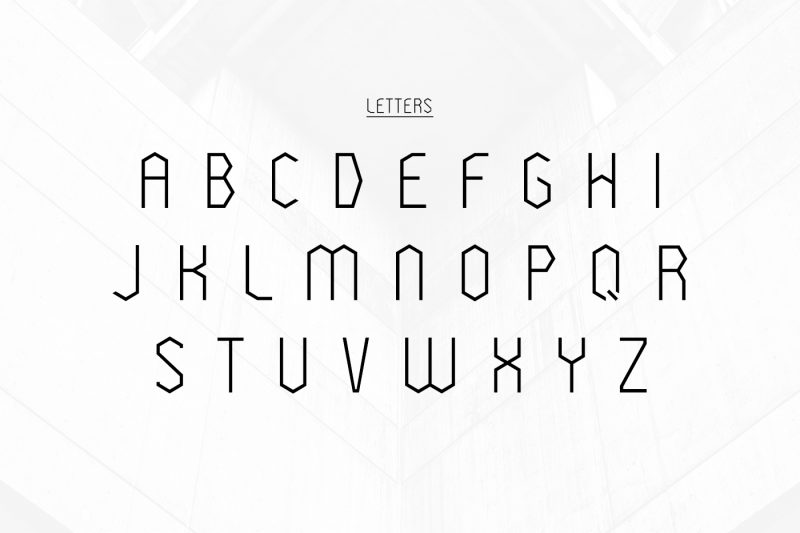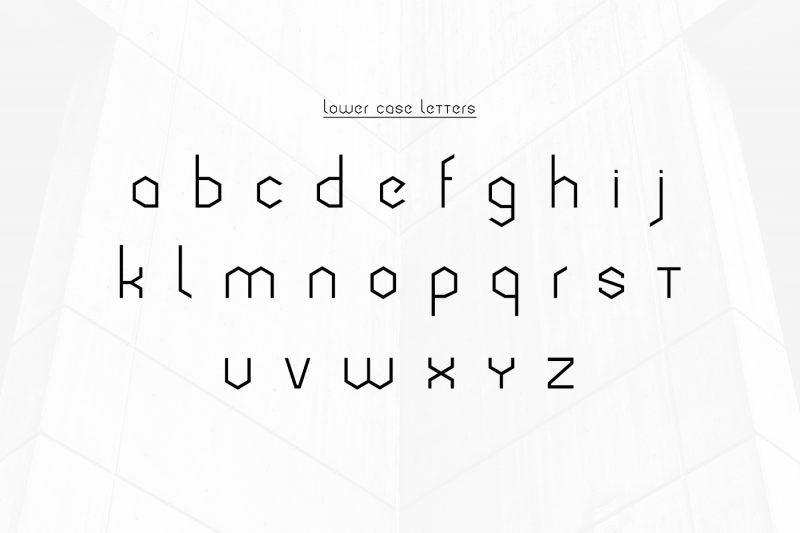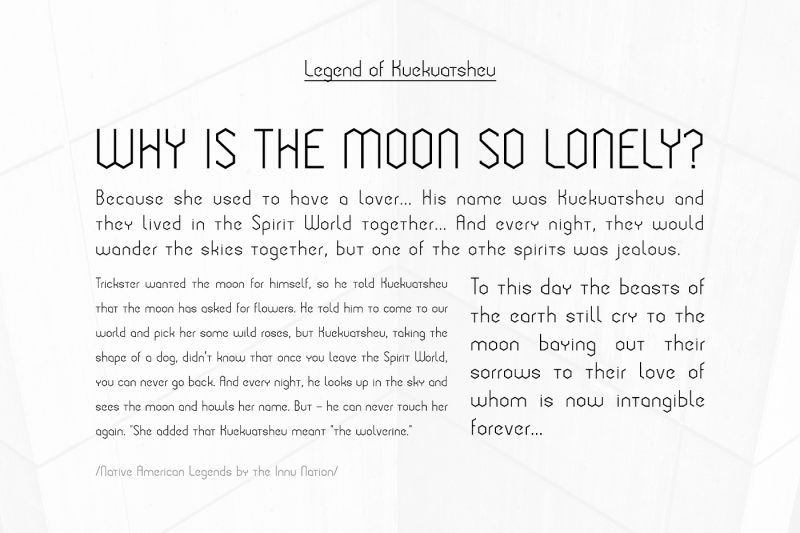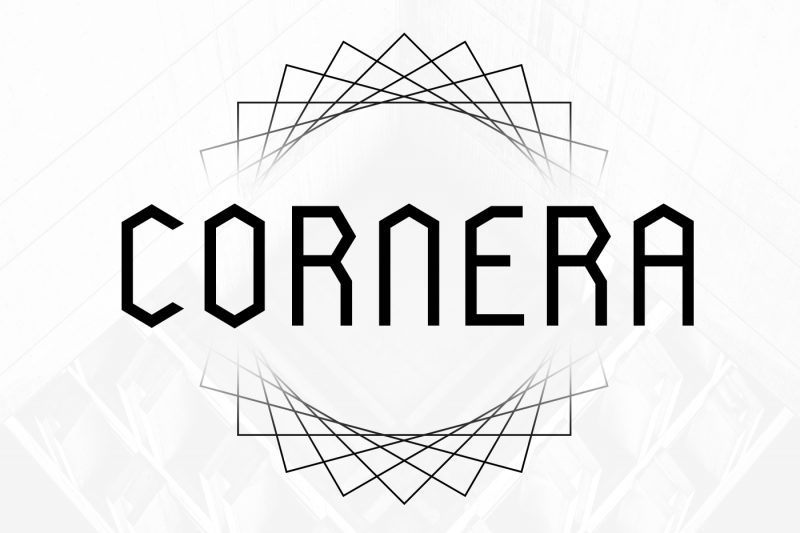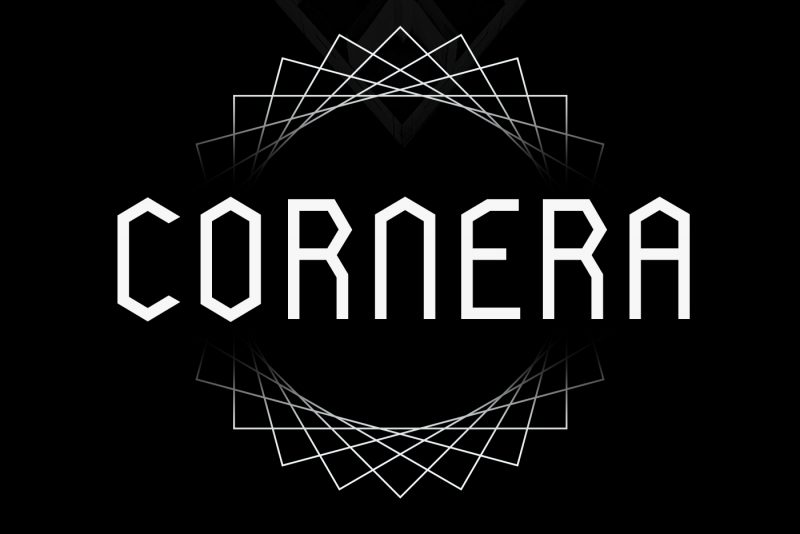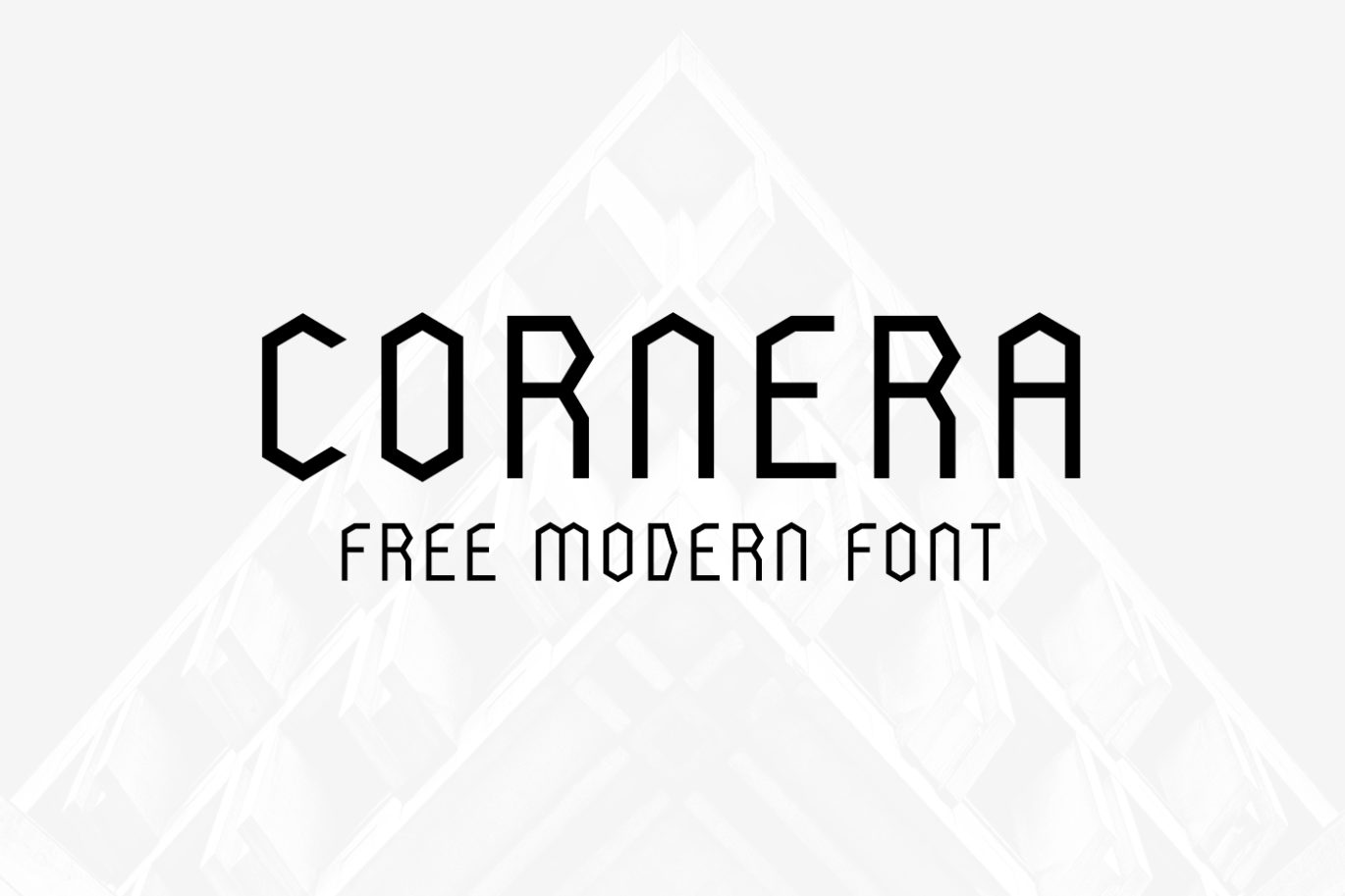
New Free Font CORNERA
“Wild Ones” have just released the new free font CORNERA. It’s design is based on one of their most successful font – Modeka (more than 150 000 downloads) – if modeka was a bit rounded, than CORNERA – is constructed only of corners – sharp edges etc – and that all together gives this font a unique feel – of modern/futuristic font. So it makes it self useful for logo designs, headlines and short descriptions.